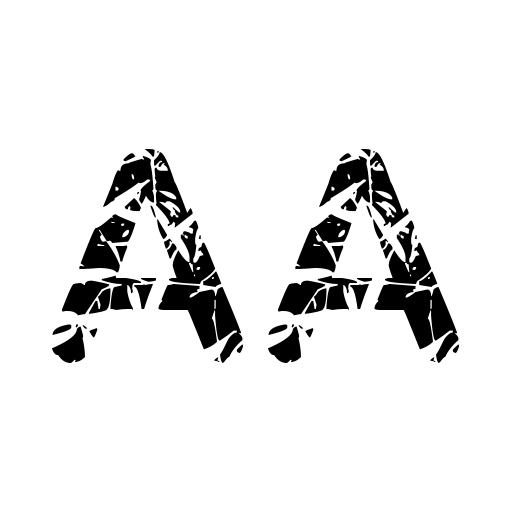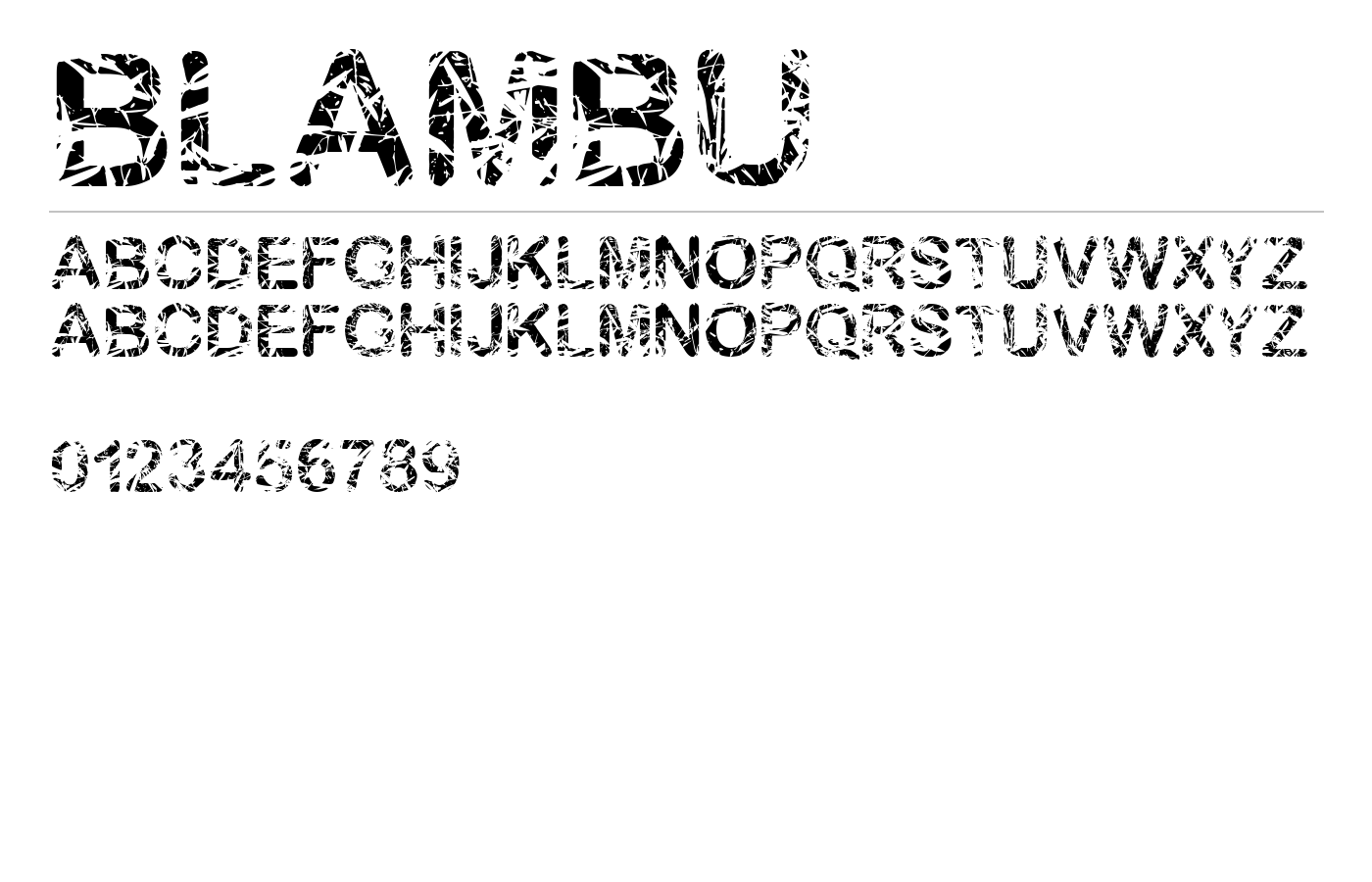
Blambu is a bold, distressed sans serif font featuring an edgy, fragmented texture that gives it a gritty, urban feel. Its strong, capital-only letterforms are perfect for eye-catching headlines, posters, and branding that aim to convey a raw, dynamic, and contemporary vibe. This font works well in creative projects where a rebellious or unconventional atmosphere is desired.
blambu Font
About blambu Font
| Font family | blambu Font |
| Designer | max infeld |